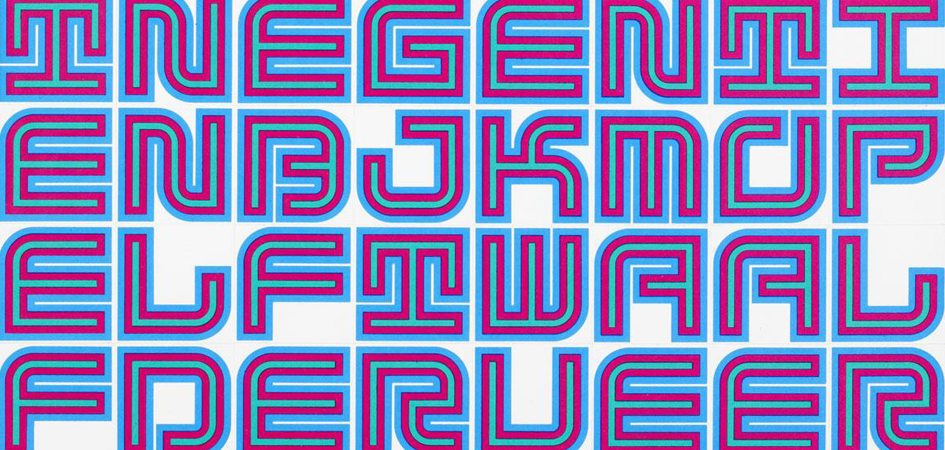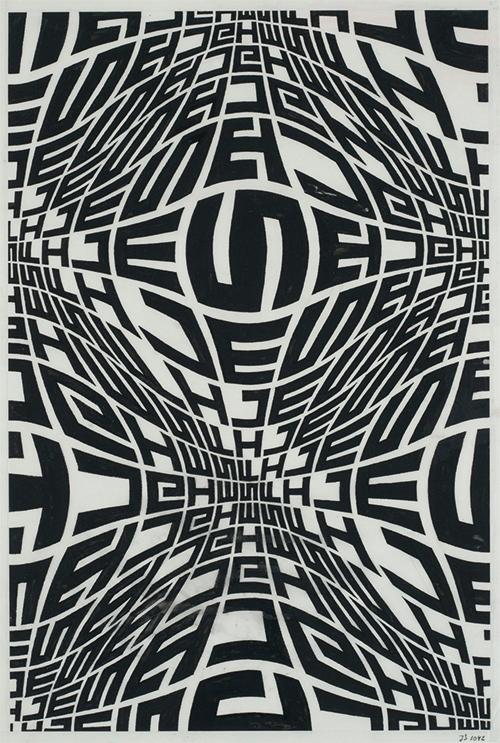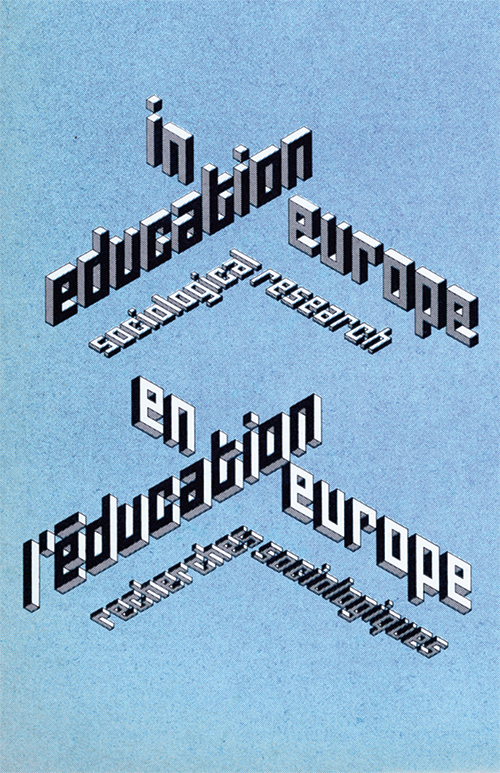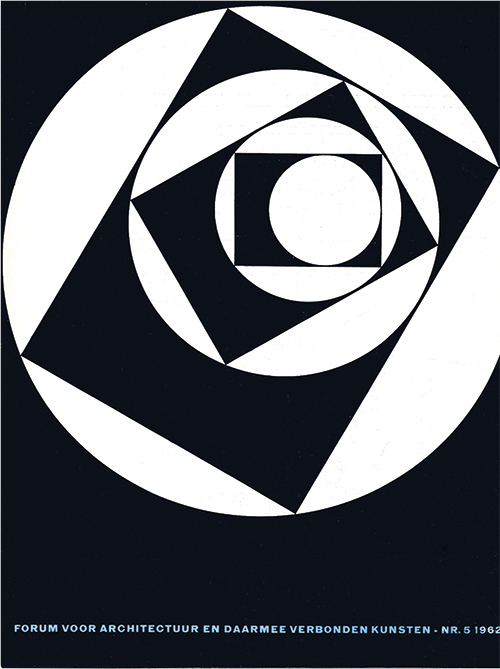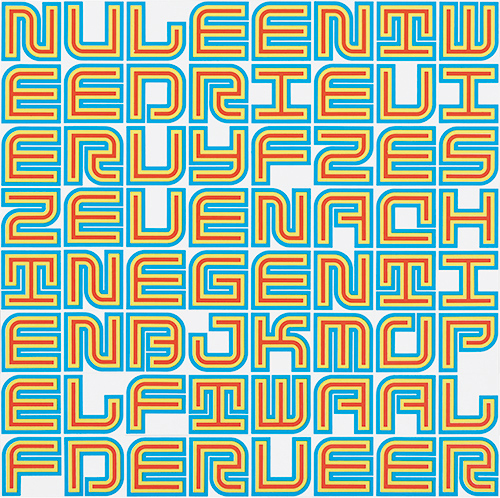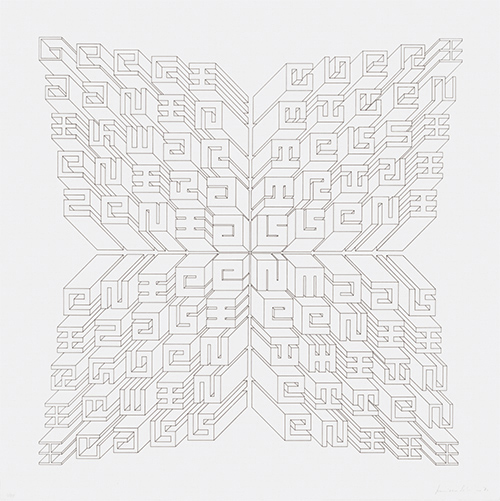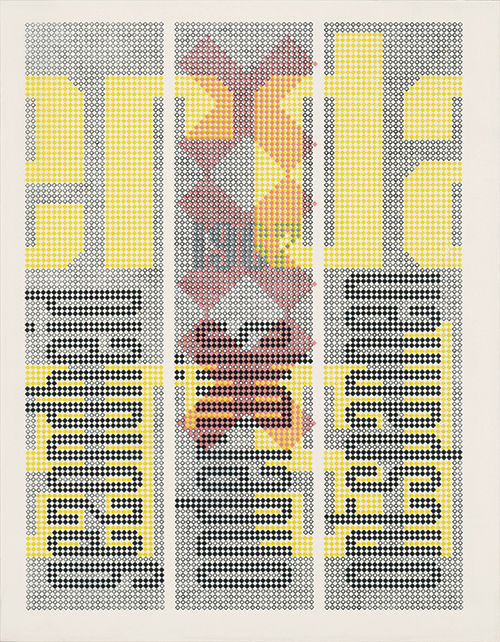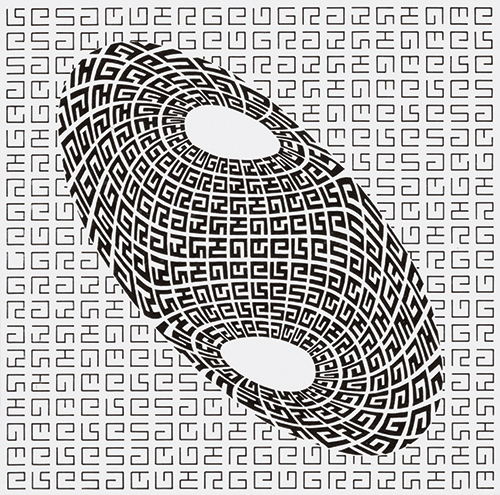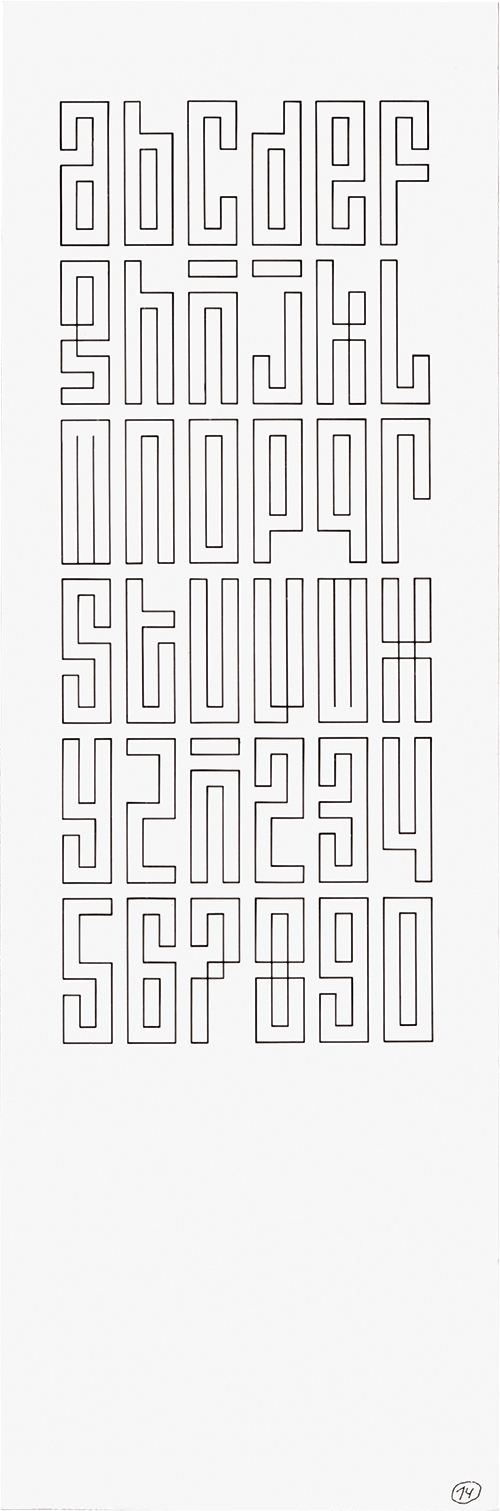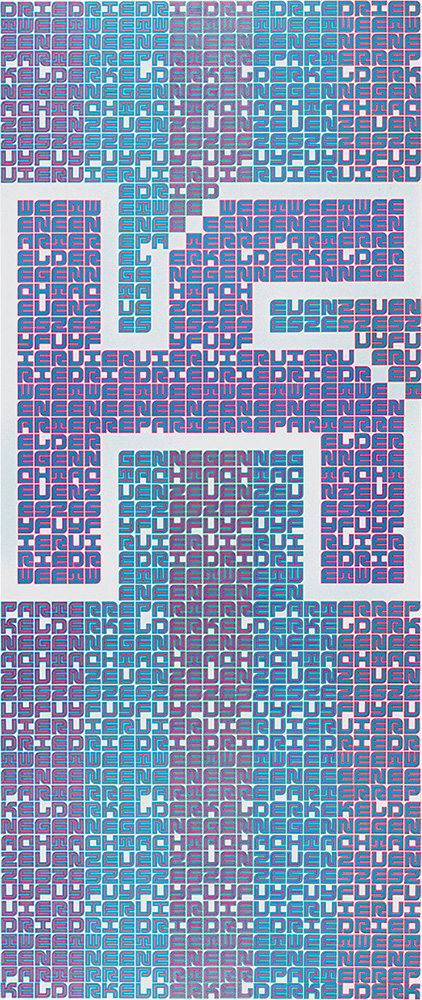
Happy Birthday Jurriaan Schrofer, the genius of design you didn’t know
Born on the 15th of April in Hague, Dutch designer, thinker, lecturer, artist and polymath Jurriaan Schrofer is regarded one of the most defining yet least known figures in European graphic design in the 1950s-70s. Schrofer began his career in the postwar years and died in 1990 sliping his typographic brilliance into history almost unnoticed. “Schrofer designed some of the major publications of Dutch intellectual life, such as Forum magazine and Ooievaars’ paperbacks; he designed for PTT (the national post office), the Stedelijk Museum and numerous high-profile clients; he was a partner at Total Design, alongside Wim Crouwel; he laid out a version of the Situationist Constant Nieuwenhuys’ New Babylon, a project for an utopian anti-capitalist city; he sat on numerous official committees, including one tasked to commission a monument for Queen Wilhelmina” writes David Crowley, head of Critical Writing in Art & Design programme at the Royal College of Art, London. “Unlike his near contemporaries, Jan van Toorn, Otto Treumann and Wim Crouwel – Schrofer has not been picked up by historians and curators for serious analysis until now, almost 25 years after his death”.
Change and continuity in Africa [ontwerp]. © Nederlands Archief Grafisch Ontwerpers
It is thanks to Unit Editions which published Jurriaan Schrofer (1926-90) Restless typographer but mostly due to the highly detailed study of him in the book Jurriaan Schrofer: graphic designer, pioneer of photo books, art director, teacher, art manager, environmental artist by Frederike Hyugen (with archival and image research by Jaap van Triest) published by Valiz that we come to realise the immersive genius of Jurriaan Schrofer’s diverse and experimental typographic approach. A realm full geometric multi-dimensional letterforms which were created done painstakingly by hand - with the occasional use of photography. “A computer designer before the computer” Hyugen writes in her essay for the Unit edition’s monograph.
Nederland 15c [ontwerp]. © Nederlands Archief Grafisch Ontwerpers
“Engaged with new thinking about optics, gestalt theory and ornament, cybernetics and computer art, Schrofer created rippling fields of letters and other typographic elements. Some were applied in PTT stamps and the covers of books published by Mouton in the 1970s, while others remained experiments in Modern ornament” writes David Crowley in his review of Huygen’s extensively detailed volume on Schrofer’s life and work.
“Schrofer made several attempts to create complete typefaces - one of which was wittily called Sans serious - but this was never his goal. “Is it necessary”, he wrote, “to make complete alphabets with upper- and lowercase, figures, diacritics and seriously adorned with a name, when the aim is merely a formal investigation into basic recipes”. Schrofer’s domain was never the design of typographic alphabets, to be used by other designers, but always the creation of letterforms ‘made to measure’ as part of his own designs of - mainly - book covers and postage stamps” Jan Middendorp writes in Dutch Type.
Drs. P.H. Brunsmann, filmstudies, Dr. E. Boekmanstichting [ontwerp]. © Nederlands Archief Grafisch Ontwerpers
“In front of my eyes is life, entirely consisting of moments of happiness and loss; to live without experiencing any problems is a living death. Solving the obvious contradictions, I did not come to the conclusion that there were less good moments. In fact, it is not about ‘yes’ and ‘no’, nor faith or conscience, nor truth or lies, but the experience of the unity of opposites” he wrote in Zienderogen (In Front of Eyes), a book riddled with biographical references and published in 1988, two years before Schrofer’s death.
This is his wisdom as he wrote it down to a letter to his son Gillian:
“You, your grandfather and I are alike: wayward, we do not want to depend on anyone else, and are only happy when we have something to do. However, for your grandfather this ‘something’ is colour, for you—objects, and for me—characters. An artist, like a singer of pure poetry, is autonomous in his art. An industrial designer is the author of tools—a knife and fork, table and chairs, car and satellite, and his art is a secret of a craft. A graphic designer embodies the art of storytelling through the implementation of written communication between people. Do what you do best. It is great to have a certain talent, because then you will automatically become yourself. It is much harder when you do not have one, or when there are several at once.”
Etage-aanduiding girokantoren [ontwerp]. | Etage-aanduiding girokantoren. © Nederlands Archief Grafisch Ontwerpers
A New Romantic of typography? An anarchist who “could not restrain himself from adopting a strictly intellectual approach to his students and the information society”? Whatever the case Wim Crouwel or Jan van Toorn are not the only prominent figures of Dutch design.
A computer designer before the computer
The bizarre and extremely experimental Jurriaan Schofer is our latest obsession and his pioneering legacy is contamporary as almost half a century ago.
PTT Kantooragenda 1965. | Buizengieterij, Hoogovens IJmuiden. © Nederlands Archief Grafisch Ontwerpers
Forum, 8 1959. | Een integrale aanpak van het vraagstuk kabeltelevisie: Multivisie. © Nederlands Archief Grafisch Ontwerpers
European Journal of Agricultural Economics [ontwerp]. © Nederlands Archief Grafisch Ontwerpers
Jurriaan Schrofer (1926-90) Restless typographer. Unit Editions